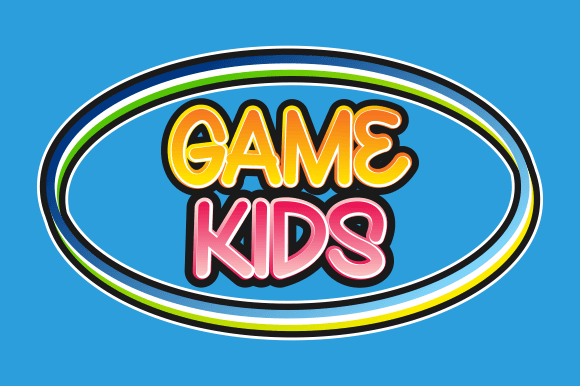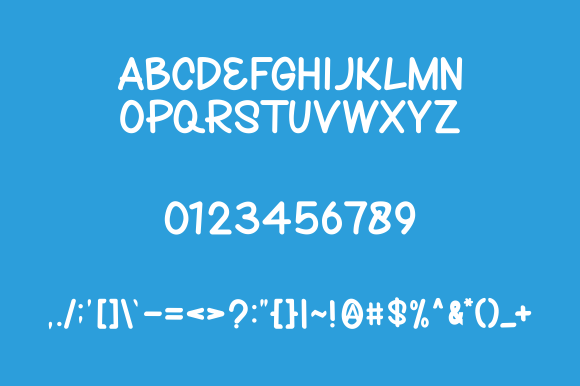
Get Ready to Unleash Your Creativity with Bangpows Font
Have you ever sat in front of a blank canvas, staring at a sea of possibilities, and thought to yourself, “What if I created something truly unique and eye-catching?” That’s exactly the moment when Bangpows Font comes to play. This bold, and thick font is designed to help you create fun and playful designs that will instantly grab anyone’s attention.
As a designer, you’re always on the lookout for that special something to make your branding and packaging projects stand out. Bangpows Font is that secret ingredient you’ve been searching for. With its perfect combination of fun and creativity, this chubby font is sure to bring a smile to your clients’ faces and make their products unforgettable.
Bangpows Font Key Features
- Font Family: Bangpows Font is a sans-serif font family designed for digital and print use.
- Unique Characteristics: Bangpows Font features a clean, modern design with rounded edges and a subtle x-height, making it easy to read and versatile for various design needs.
Bangpows Font Review
Overall, I was quite impressed with Bangpows Font. ✨ Its unique blend of modern and vintage styles creates an interesting visual identity that can be applied to a wide range of projects. ✨ The font is highly customizable, with various weights and styles available to suit different design needs.
One of the standout features of Bangpows Font is its readability. ✨ The letterforms are well-designed, with clear distinctions between letters, making it easy to read even in small sizes. Additionally, the font is optimized for digital use, ensuring that it looks great on various screens and devices.
What Doesn’t Work So Well
While Bangpows Font is generally well-designed, there are a few limitations to consider: ⚠️ The font lacks a comprehensive character set, which can make it difficult to use for languages that require a wide range of special characters. ⚠️ Additionally, the font’s vintage style may not appeal to everyone, and some users may find it too quirky or unconventional.
- Lack of comprehensive character set
- Vintage style may not appeal to everyone
- May require additional styling to achieve desired look
Overall, Bangpows Font is a solid choice for designers who want a unique and customizable font. While it has some limitations, its strengths make it a valuable addition to any design toolkit.
Some popular use cases for Bangpows Font include:
- Creating eye-catching social media graphics.
- Designing unique and stylish posters.
- Adding a touch of elegance to your resume or business card.
For best results, use Bangpows Font in conjunction with bold